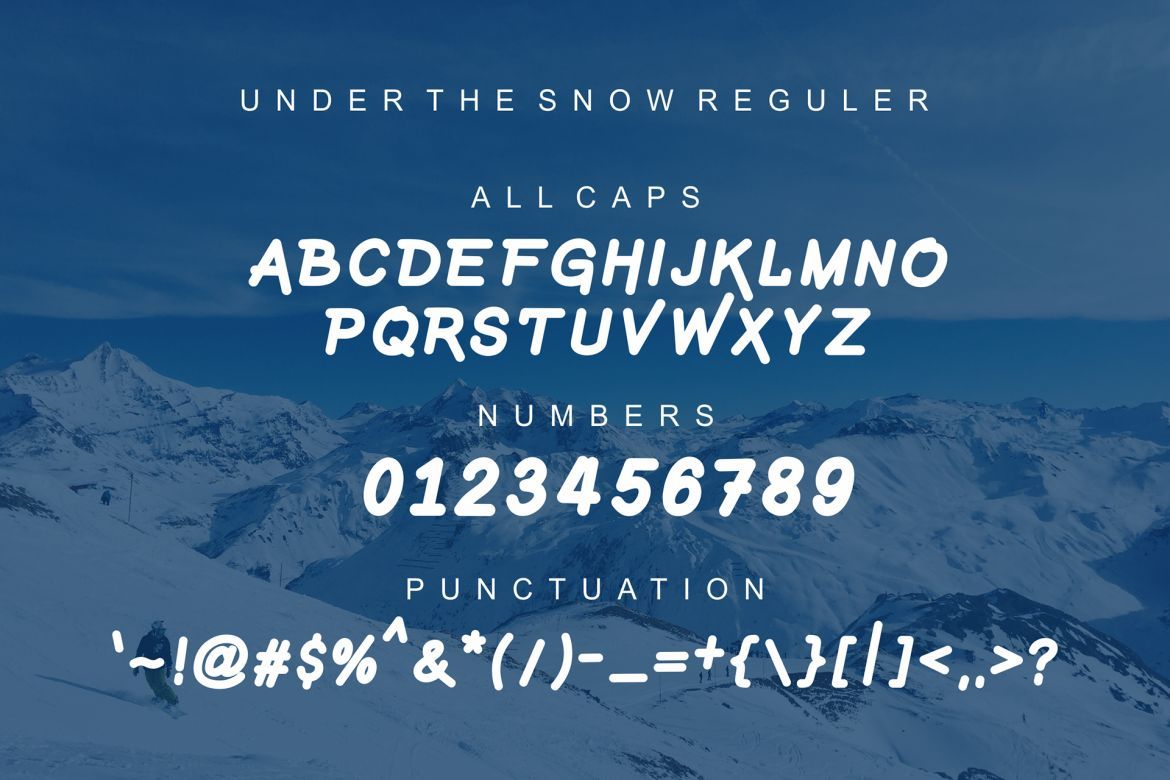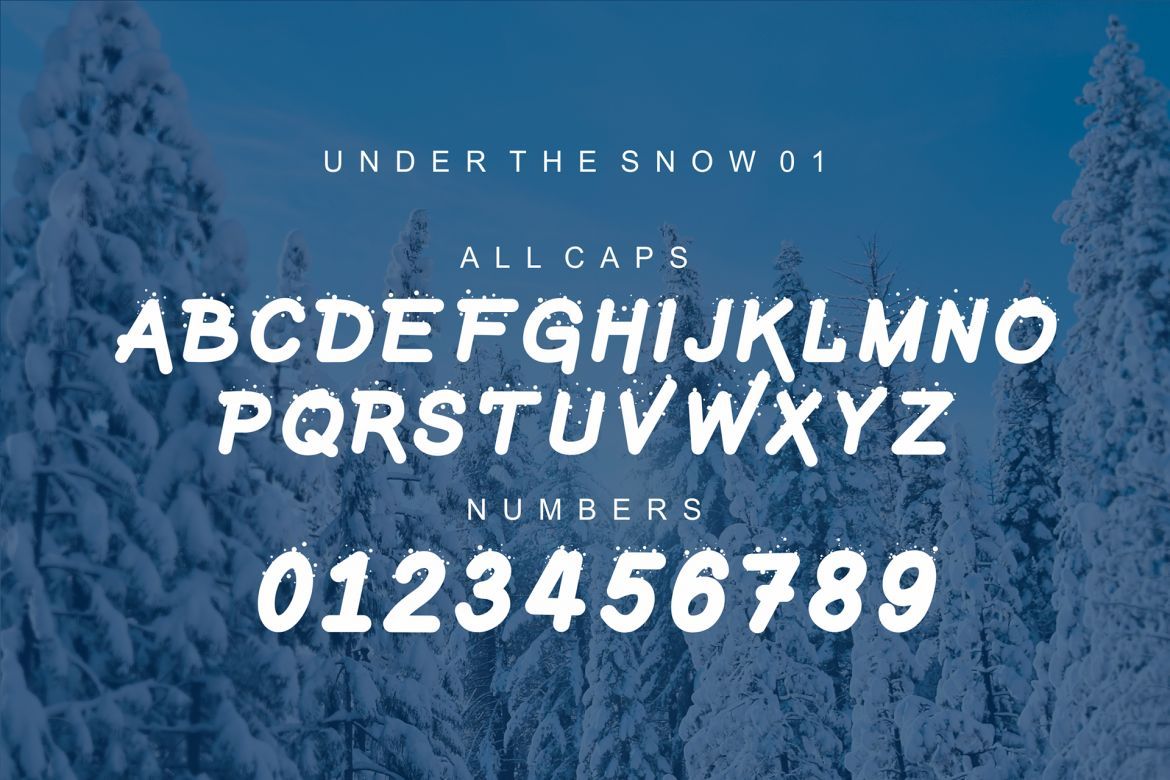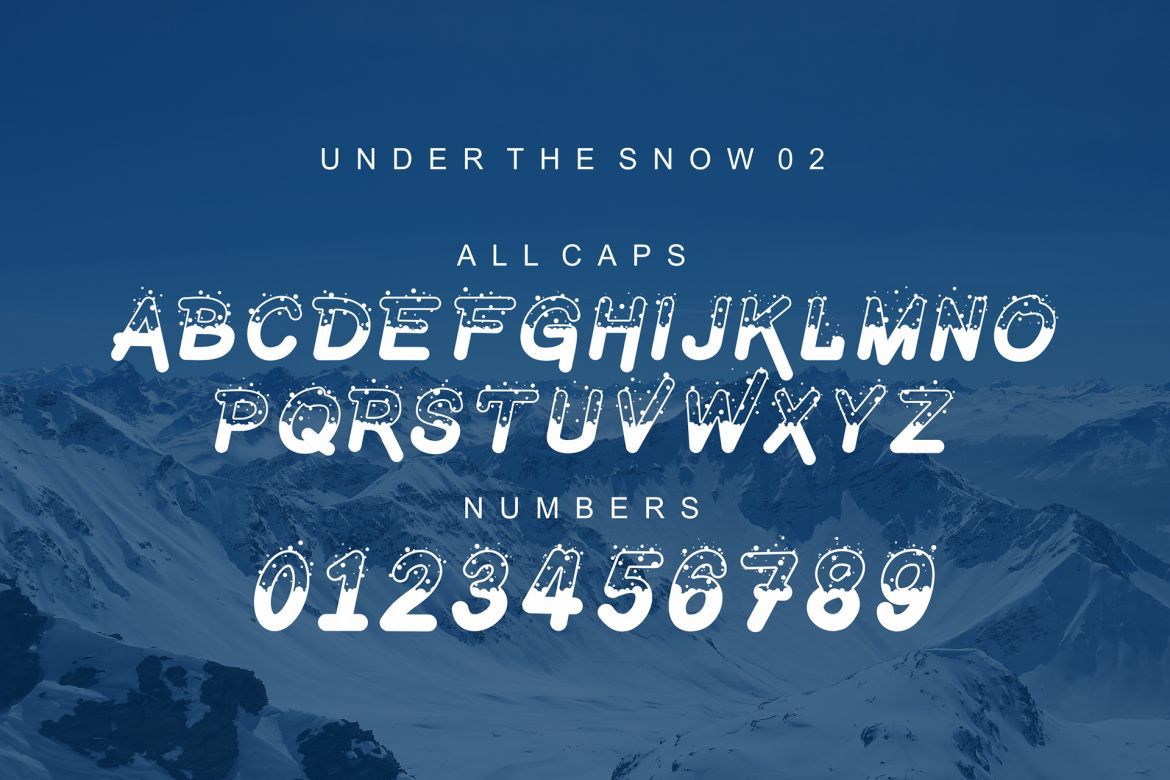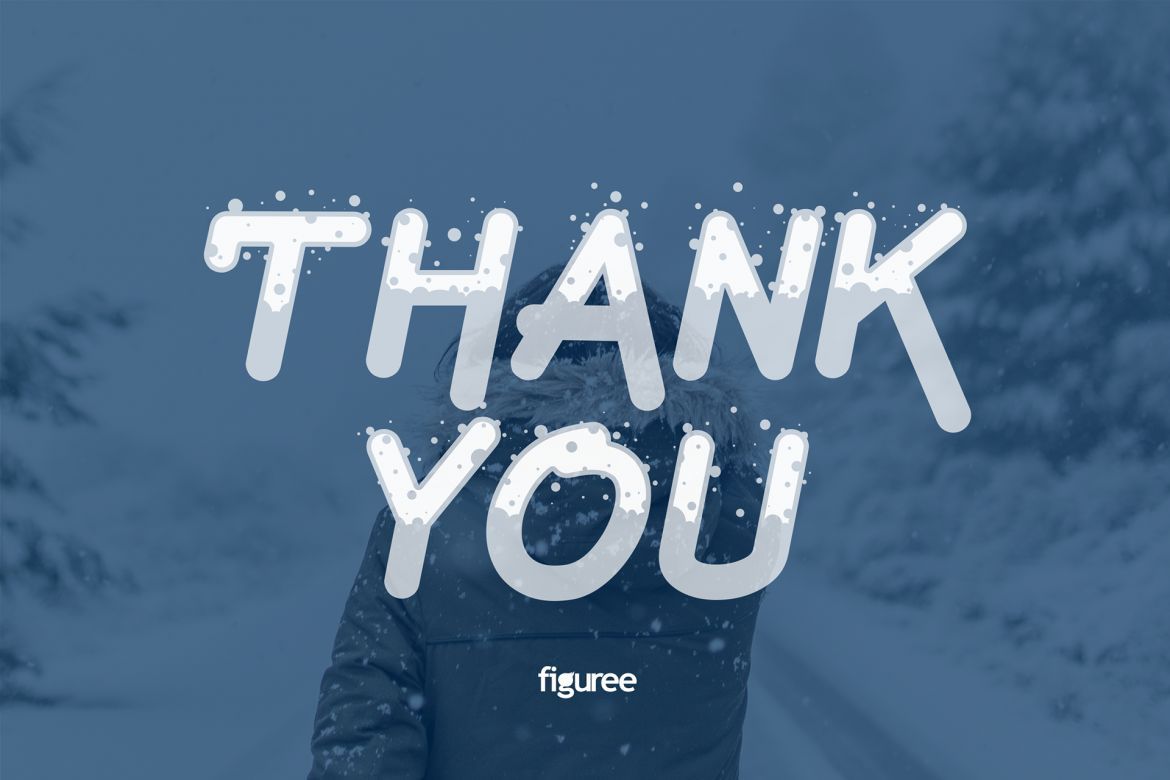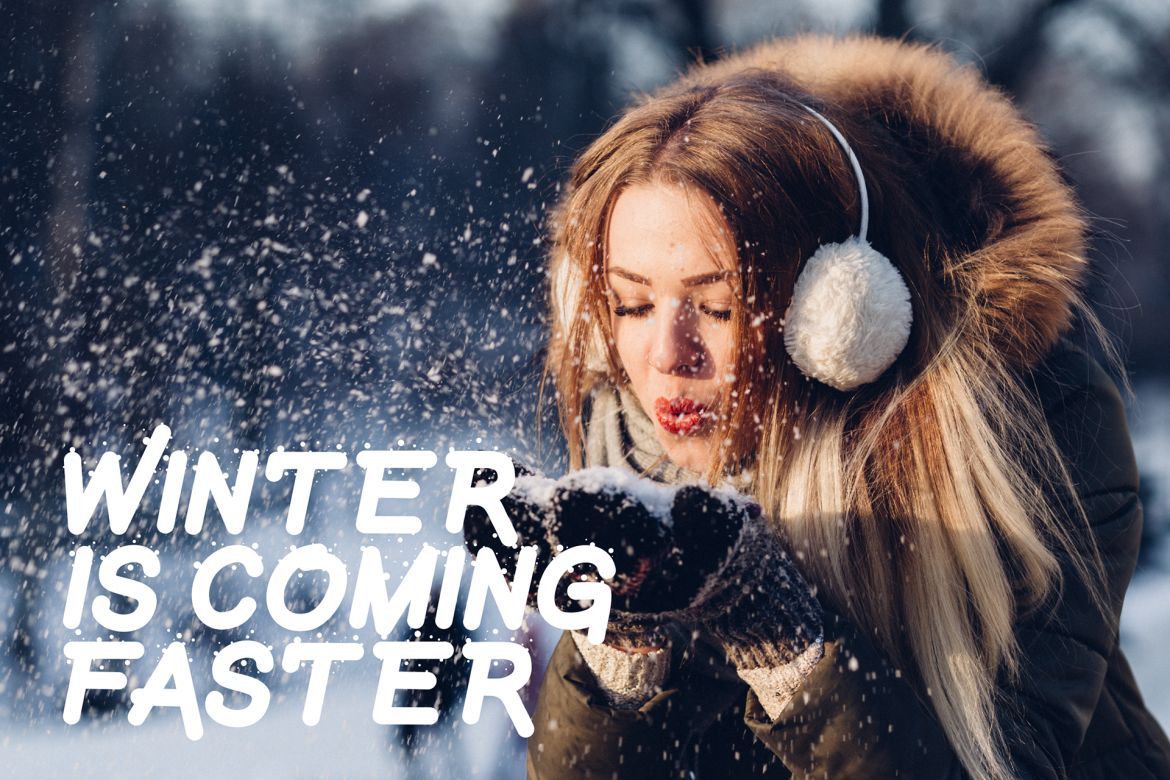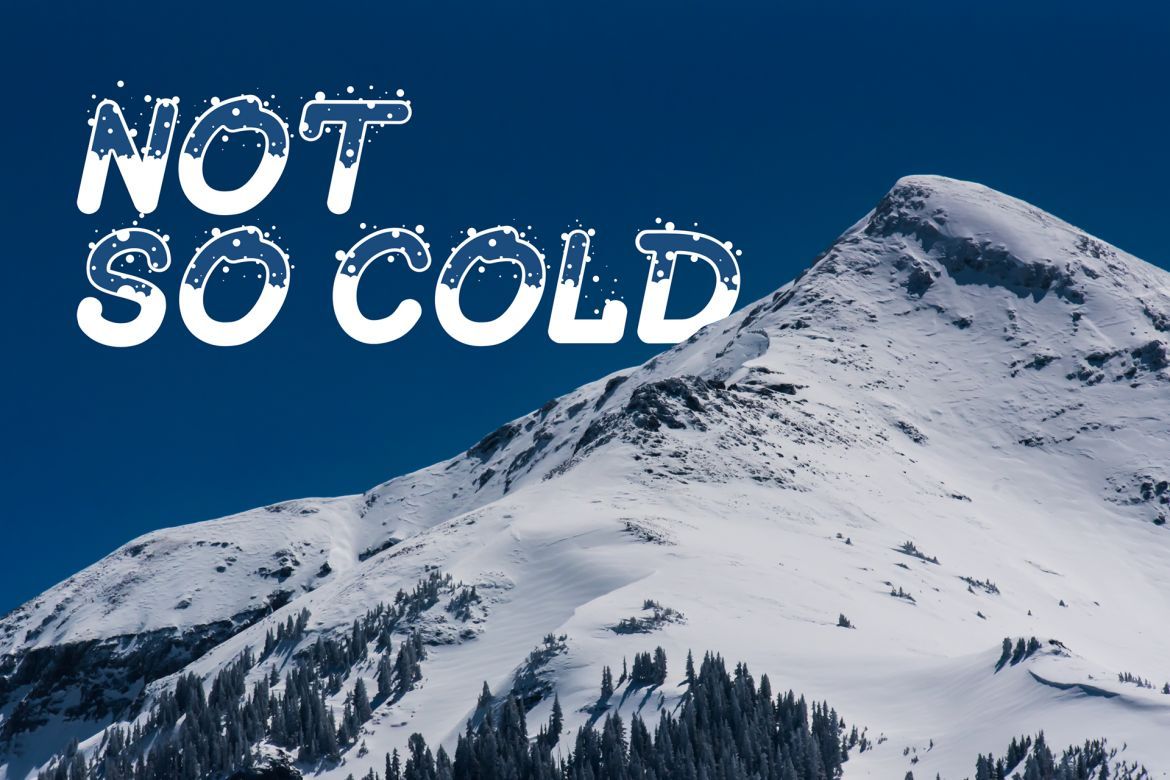
Under The Snow Display Font
The Under The Snow is a simple layered font inspired by the uniqueness of the snow.
Under The Snow includes 3 fonts + 1 layered inner font
• Under The Snow Reguler
• Under The Snow 01
• Under The Snow 01 Inner
• Under The Snow 02
Under The Snow is great in any branding, posters, clothing, especially your upcoming winter stuff.